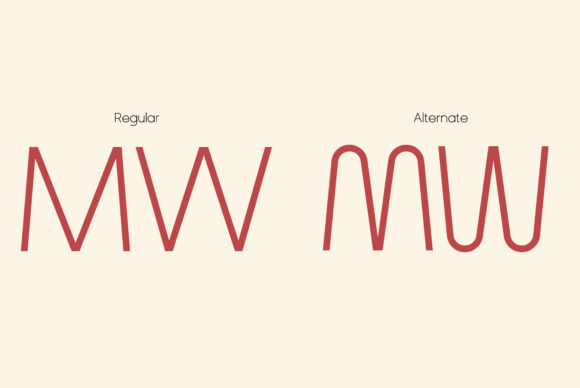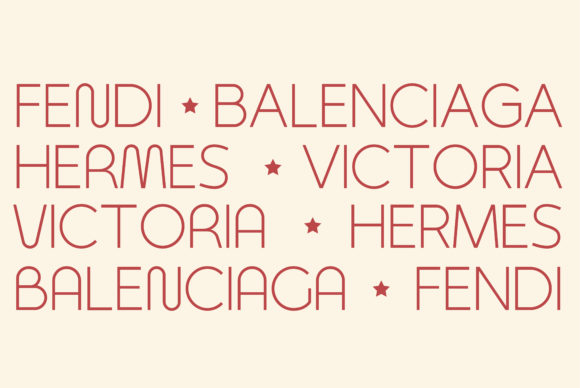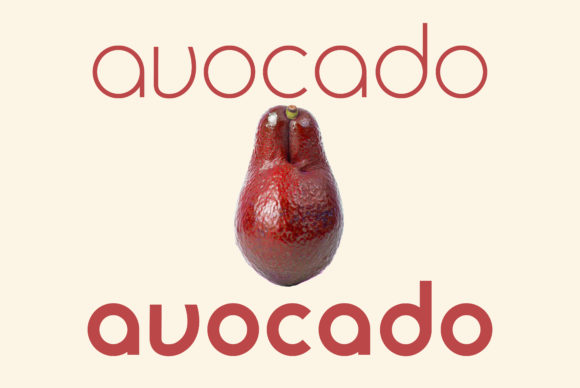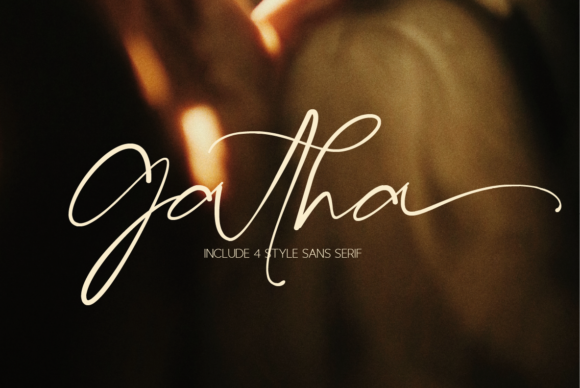
Introduction to Gatha Duo Font Font
Gatha Duo is a match made in heaven.
It perfectly combines a beautiful script with an elegant sans serif These styles are ready to be used together and give your designs a modern and unique look.
Key Features of Gatha Duo Font Font
Why Choose Gatha Duo Font Font?
Gatha Duo Font Font offers exceptional quality and versatility, making it a valuable addition to your design toolkit. Whether you’re creating for personal projects or commercial use, Gatha Duo Font Font delivers professional results.